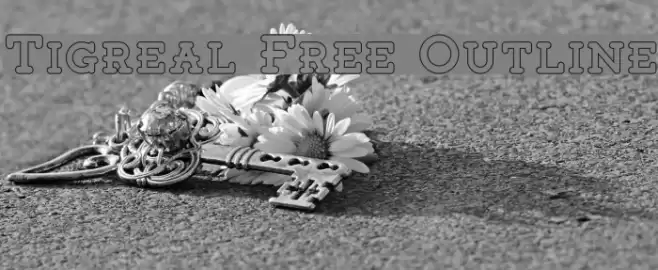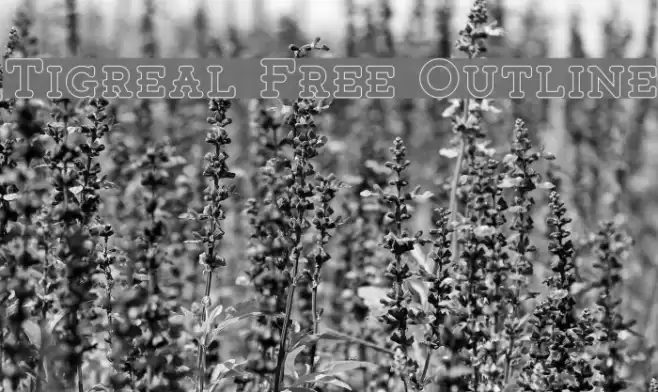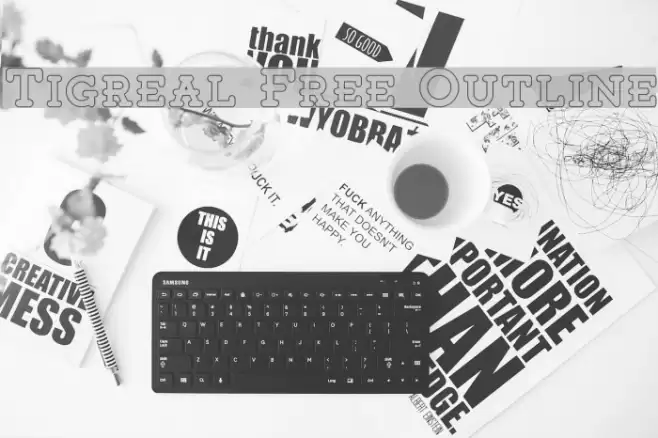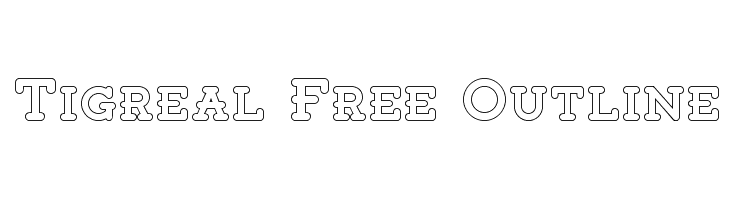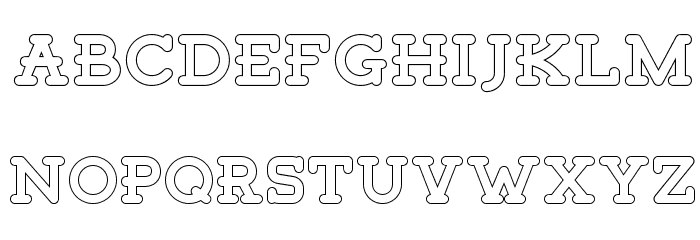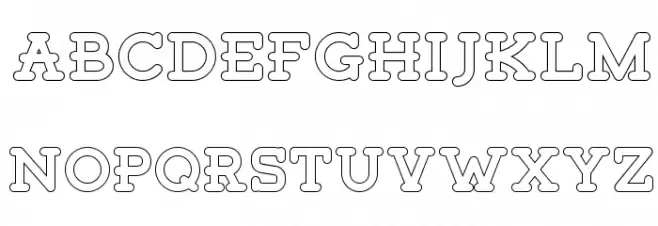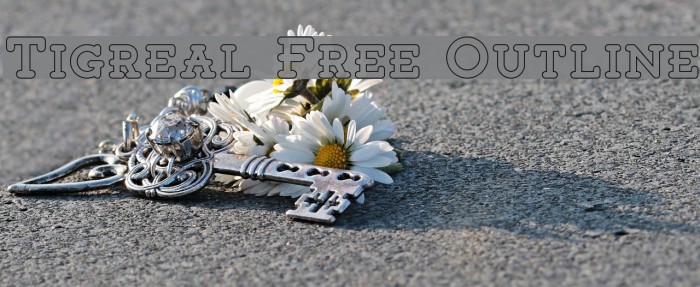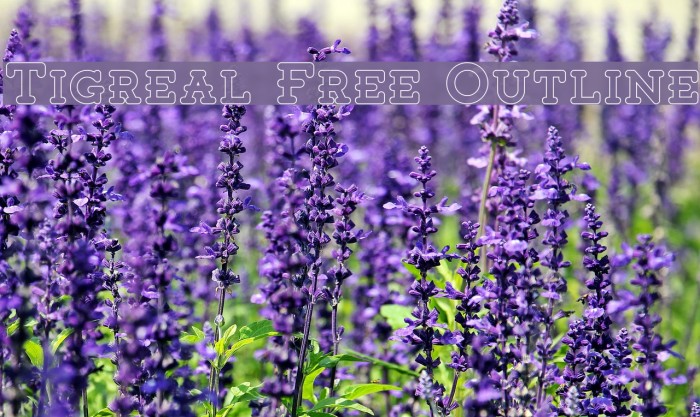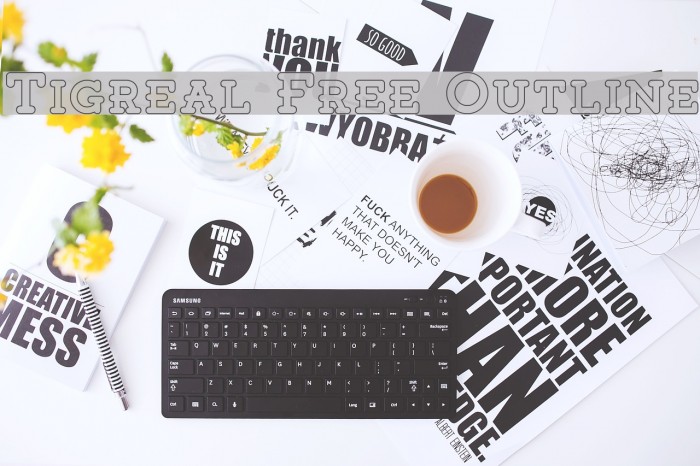
Tigreal Free Outline Font
Tigreal Free Outline Description
This font features a bold, outline style with a classic serif design. The characters are uppercase and exhibit a strong, structured form with a consistent outline that gives them a three-dimensional appearance. The serifs are prominent, adding a touch of elegance and tradition to the overall look. The spacing between characters is normal, ensuring readability while maintaining a cohesive appearance. This font is ideal for projects that require a bold statement with a touch of sophistication, such as headlines, posters, and branding materials.
A bold, outlined serif font with a classic and structured design from Uncategorized fonts.
- Proposed Projects: Ideal for headlines, posters, branding, and any project requiring a bold, sophisticated look.
- Overall Style: Classic
- Use Case: Headlines, Posters, Branding